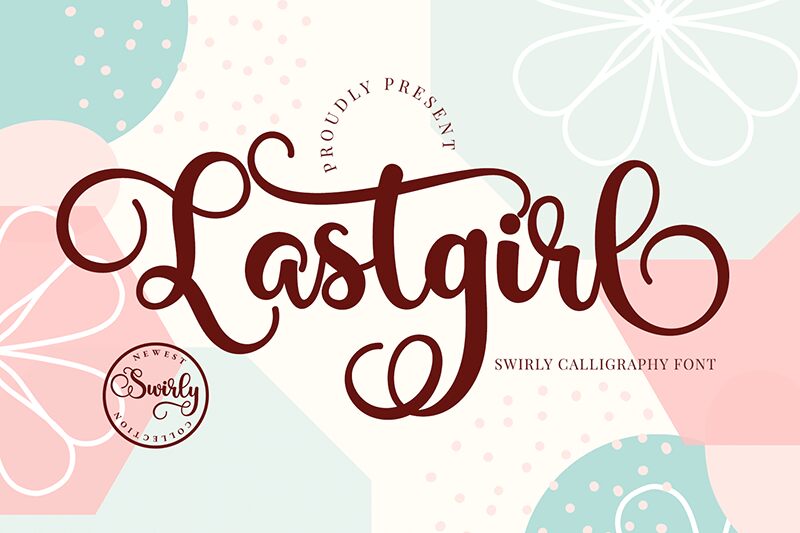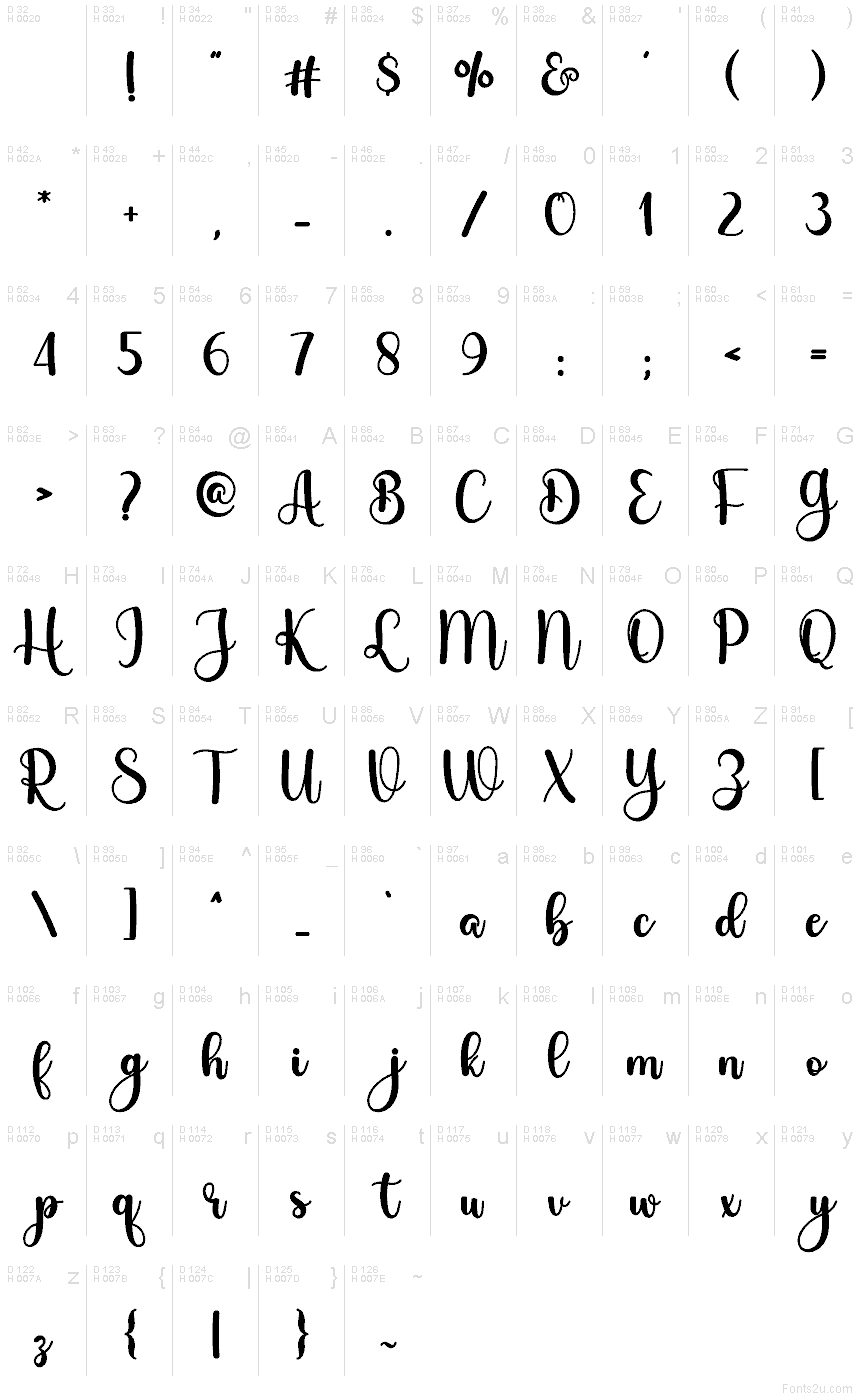
Lastgirl
Lastgirl font by Airotype Studio is a free curly brush script typeface with a lush, inky flow that feels hand-lettered and confident. Thick, velvety strokes and looping curves give it a romantic, modern calligraphy vibe without looking stiff or formal, so it reads as warm and personal rather than staged. The letters tuck into each other with an easy rhythm, creating a smooth, connected look that holds up beautifully at larger sizes.
Using Lastgirl, you can bring a soft, feminine energy to wedding invitations, save-the-date cards, boutique logos, product packaging, social media quotes, and handmade-style branding. This free font shines on anything that needs a handwritten signature touch, especially when paired with a clean sans serif for small text or taglines. Try setting Lastgirl larger for main headings and let the swashes breathe with generous spacing to show off its sweeping curves.